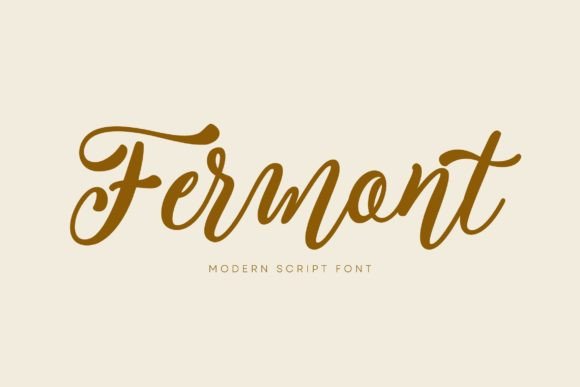
Are you seeking a font that exudes timeless sophistication and modern elegance? Look no further than Fermont Font—the pinnacle of script fonts, designed to grace the pages of Vogue Magazine.
Born from the creative genius of etigletters, Fermont Script Font is a hand-lettered masterpiece that captivates with its bold strokes and mesmerizing circle movement. Its intricate curves flow like a gentle stream, evoking a sense of effortless grace and timeless beauty.
With Fermont Script Font, you hold the key to unlocking a world of creative possibilities. Its versatility knows no bounds, making it the perfect companion for a myriad of projects. Whether you're crafting a captivating logotype, designing a striking brand identity, or creating eye-catching packaging, Fermont's presence elevates every project to new heights.
Experience the transformative power of Fermont Script Font, meticulously crafted to suit your every need. Its PUA encoding grants you effortless access to a treasure trove of glyphs and ligatures, empowering you to unleash your creativity like never before.
Fermont Script Font—a symphony of sophistication, elegance, and boundless potential. Embrace its allure and watch your creative visions come to life.